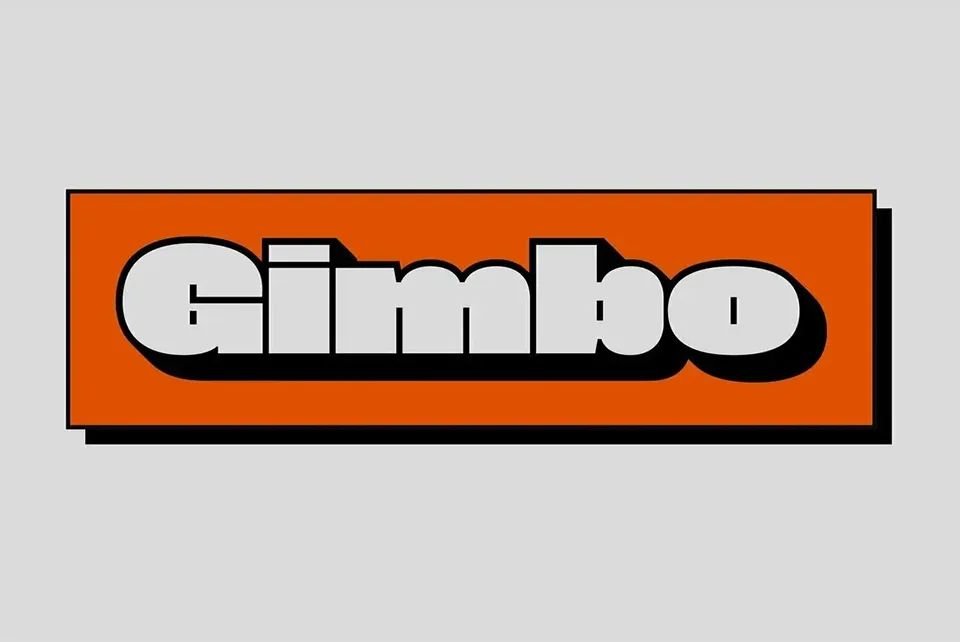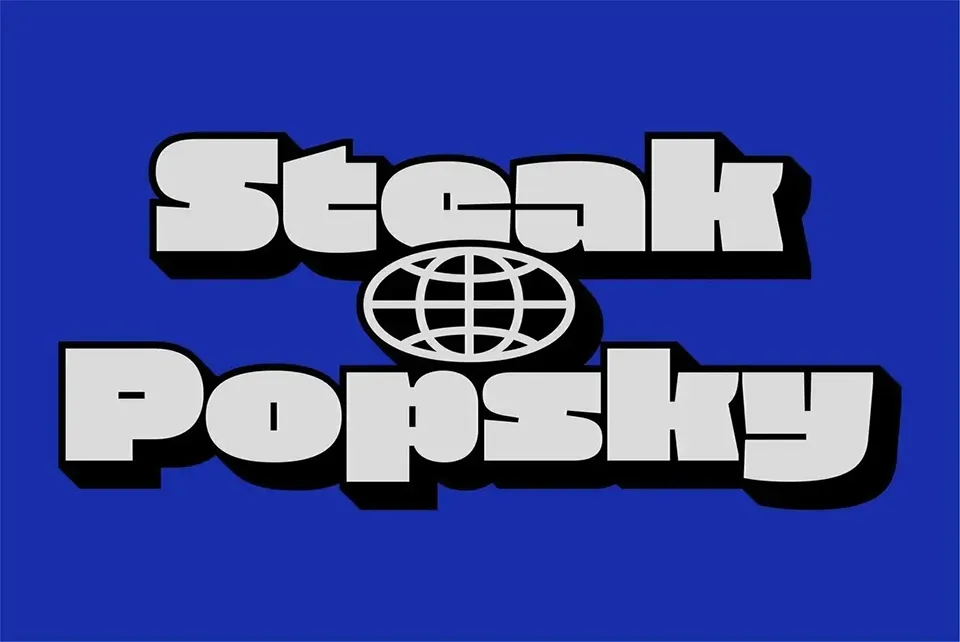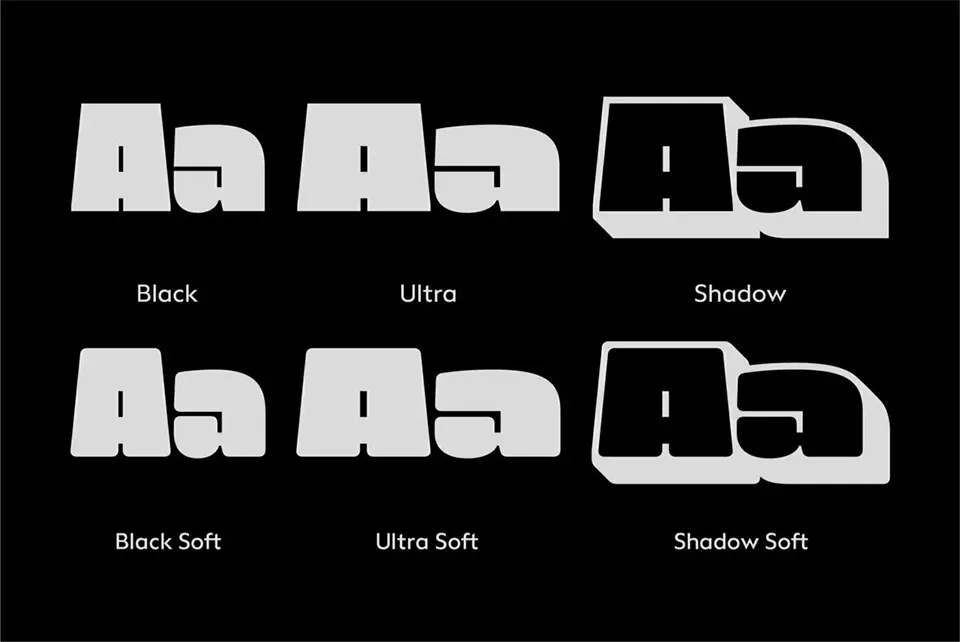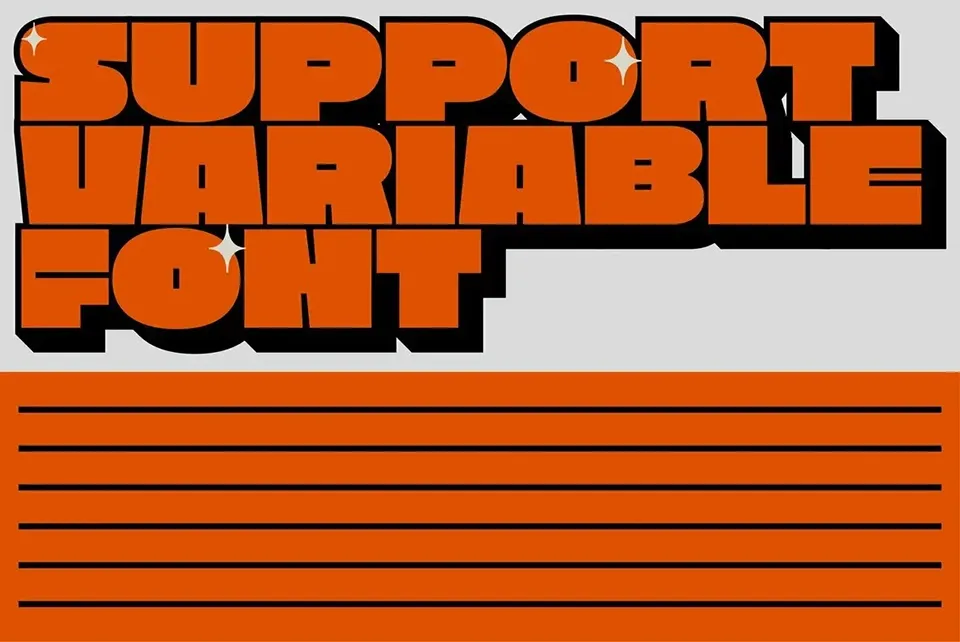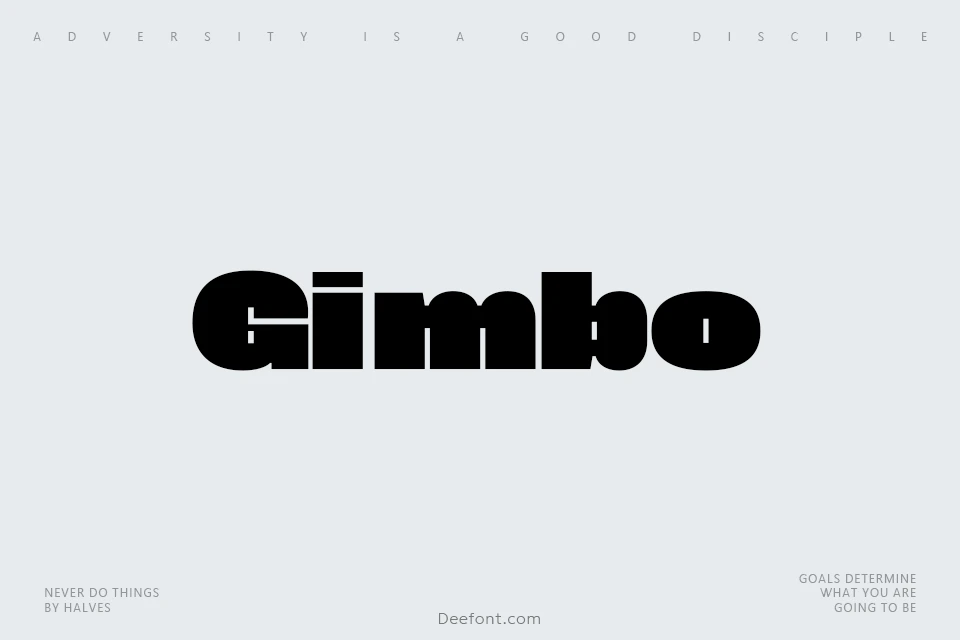
Gimbo Font
Gimbo Font is a bold and playful display typeface designed to make a strong visual impact. Its chunky, rounded letterforms and thick outlines give it a friendly and approachable character, perfect for headlines, posters, logos, and branding projects that need to stand out. The font’s retro-inspired style, combined with a modern twist, ensures excellent readability while adding a fun and energetic vibe to any design. Gimbo’s unique shadow effect and vibrant presence make it ideal for both digital and print applications, capturing attention and delivering your message with confidence and style.